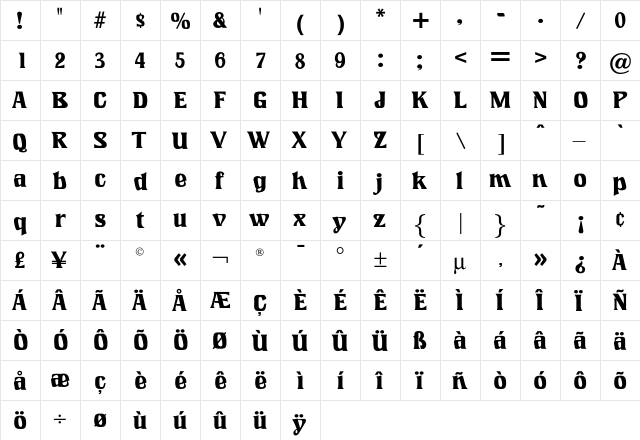
LookingGlassOpti Regular
Design Context for LookingGlassOpti Typeface
LookingGlassOpti is a composed and adaptable typeface that performs quietly and consistently across a wide range of design contexts.